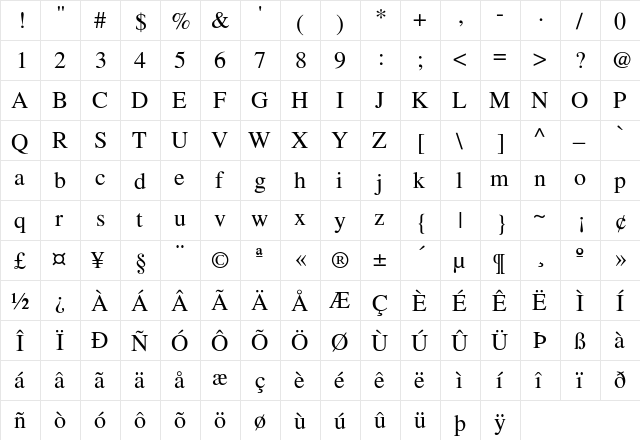
NewsSerif-Roman Regular
Design Context for NewsSerif-Roman Typeface
NewsSerif-Roman carries the refined structure of traditional serif typography, with bracketed terminals and considered proportions that communicate credibility and craft.
Pro Tip: Set NewsSerif-Roman with slightly loose tracking in headlines to let each letterform's detail read clearly at display sizes.